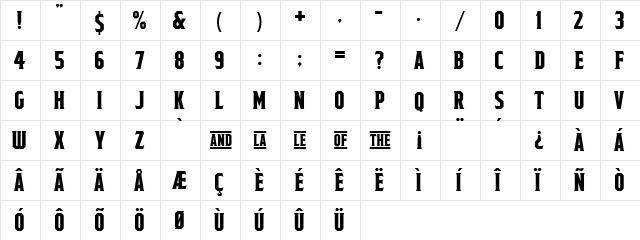
Fields of Cathay Regular
| Designer | HENRIavecunK |
Design Context for Fields of Cathay Typeface
Fields of Cathay is a composed and adaptable typeface that performs quietly and consistently across a wide range of design contexts.
Pro Tip: Use Fields of Cathay in both headline and body roles to test its range before committing to a single application.